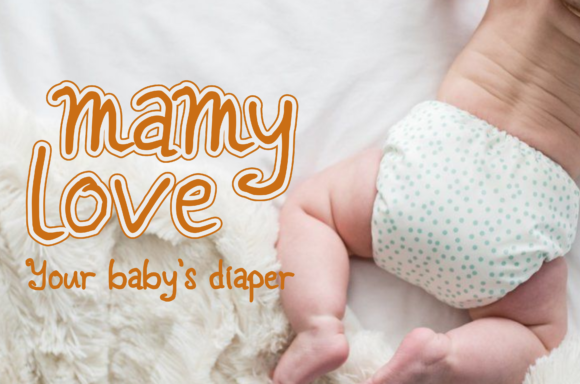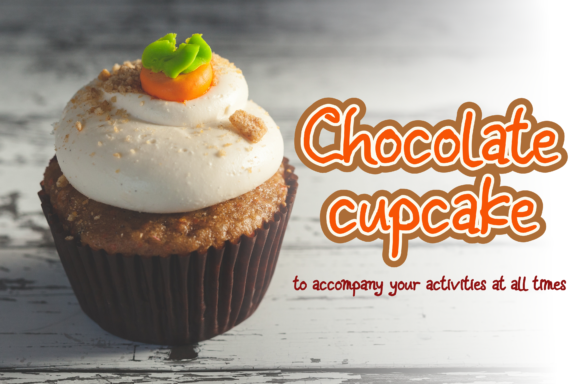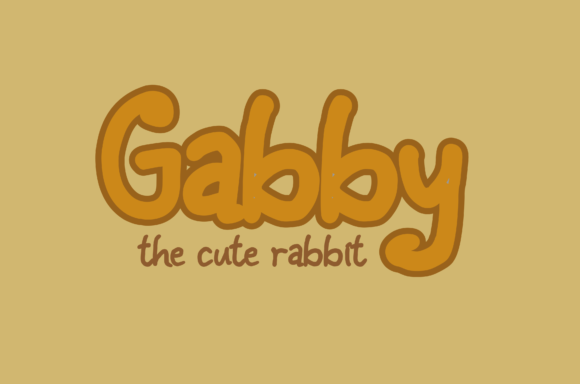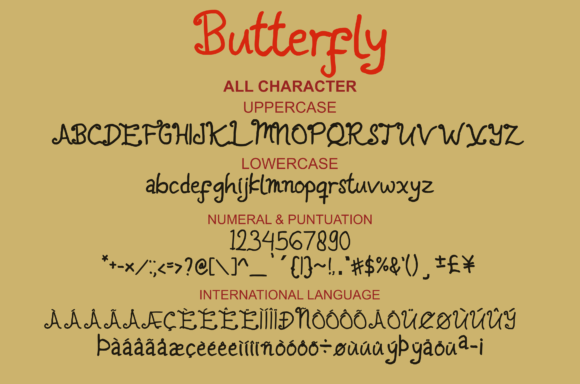
Introducing the Butterfly Font: A Delightful Handmade Script Typeface
The Butterfly font is a charming, handmade script typeface that is sure to capture the hearts of designers and crafters alike. With its fun and playful feel, this font is perfect for creating delightful children’s designs that are both imaginative and engaging. But the versatility of the Butterfly font doesn’t stop there – it’s also an excellent choice for a wide range of creative projects, from quotes and headings to logos, t-shirts, invitations, posters, and more.
The Characteristics of the Butterfly Font
The Butterfly font boasts a unique, handcrafted quality that sets it apart from more traditional typefaces. Its playful, cursive strokes and whimsical flourishes evoke a sense of joy and creativity, making it an ideal choice for designs that require a personal touch. The font’s handmade nature also gives it a distinctive, organic feel that is perfect for designs that require a more rustic or vintage aesthetic.
Perfect for Children’s Designs
One of the standout features of the Butterfly font is its ability to bring a sense of wonder and excitement to children’s designs. Whether you’re creating materials for a kids’ party, a children’s book, or an educational resource, this font is sure to delight young minds. Its playful, curly strokes and bright, cheerful feel make it an excellent choice for designs that require a fun and youthful vibe.
A Versatile Font for a Wide Range of Projects
While the Butterfly font is certainly well-suited to children’s designs, its versatility makes it an excellent choice for a wide range of creative projects. Here are just a few ideas to get you started:
- Quotes and Headings: The Butterfly font is perfect for creating eye-catching quotes and headings that are sure to grab attention. Its playful, cursive strokes add a touch of elegance and sophistication to any design.
- Logos: The unique, handmade quality of the Butterfly font makes it an excellent choice for logos that require a personal touch. Whether you’re creating a logo for a children’s brand or a business that requires a more playful aesthetic, this font is sure to impress.
- T-Shirts and Apparel: The Butterfly font is a great choice for designing t-shirts, hoodies, and other apparel items that require a fun and playful vibe. Its bold, cursive strokes are sure to stand out on any garment.
- Invitations and Posters: The Butterfly font is also perfect for creating invitations, posters, and other printed materials that require a touch of whimsy and elegance. Its handmade quality adds a distinctive, organic feel to any design.
Why Choose the Butterfly Font?
So why choose the Butterfly font for your next creative project? Here are just a few reasons why this font stands out from the crowd:
- Unique and Handmade: The Butterfly font is a one-of-a-kind, handmade typeface that is sure to add a personal touch to any design.
- Fun and Playful: The font’s playful, cursive strokes and whimsical flourishes evoke a sense of joy and creativity, making it perfect for designs that require a fun and youthful vibe.
- Versatile: The Butterfly font is an excellent choice for a wide range of creative projects, from children’s designs to logos, t-shirts, and more.
In conclusion, the Butterfly font is a delightful, handmade script typeface that is sure to capture the hearts of designers and crafters alike. With its fun and playful feel, unique characteristics, and versatility, this font is perfect for a wide range of creative projects. Whether you’re creating materials for children, designing a logo, or simply looking for a font that adds a personal touch to your designs, the Butterfly font is an excellent choice. So why not give it a try and see the difference it can make in your next creative project?